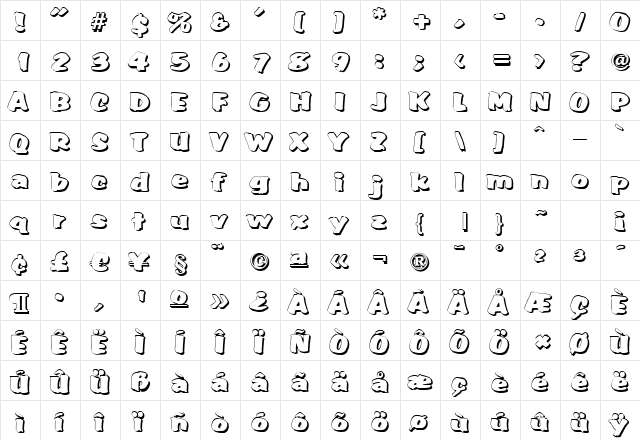
SarahBeckerShadow Normal
Design Context for SarahBeckerShadow Typeface
SarahBeckerShadow is built around its visual character rather than neutral utility — its distinctive forms are designed to make an impression at display sizes.
Font Pairing: Pair with a clean neutral sans-serif for body copy to let SarahBeckerShadow's character lead without overwhelming the composition.
Pro Tip: Treat SarahBeckerShadow as the centrepiece of your typographic hierarchy. One strong heading set in a decorative face can carry an entire layout.